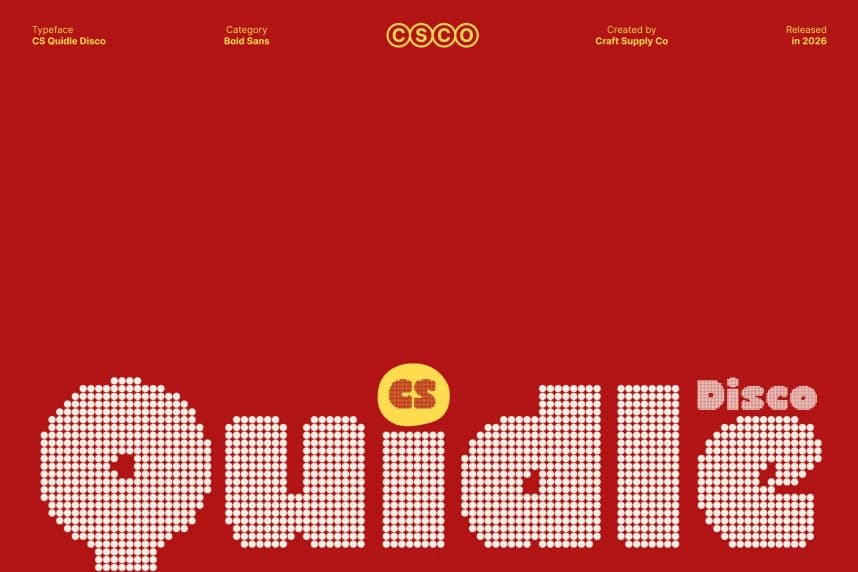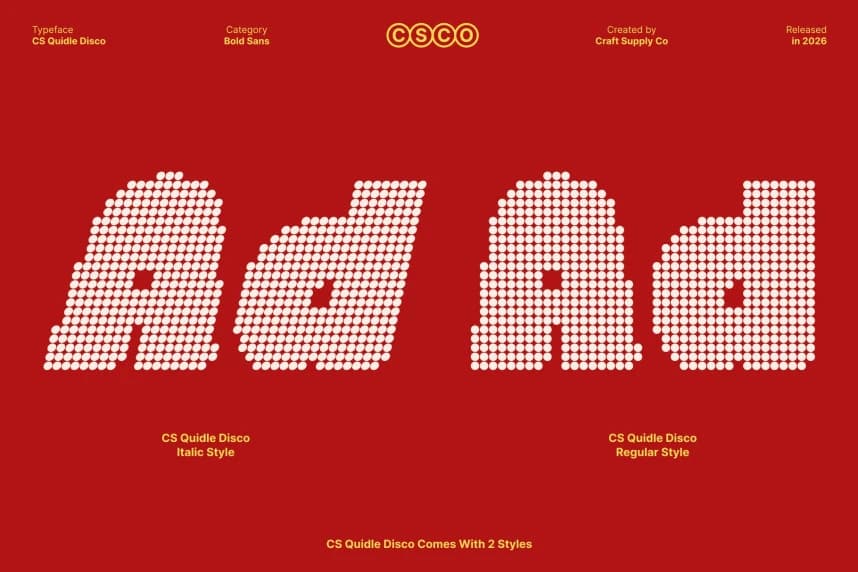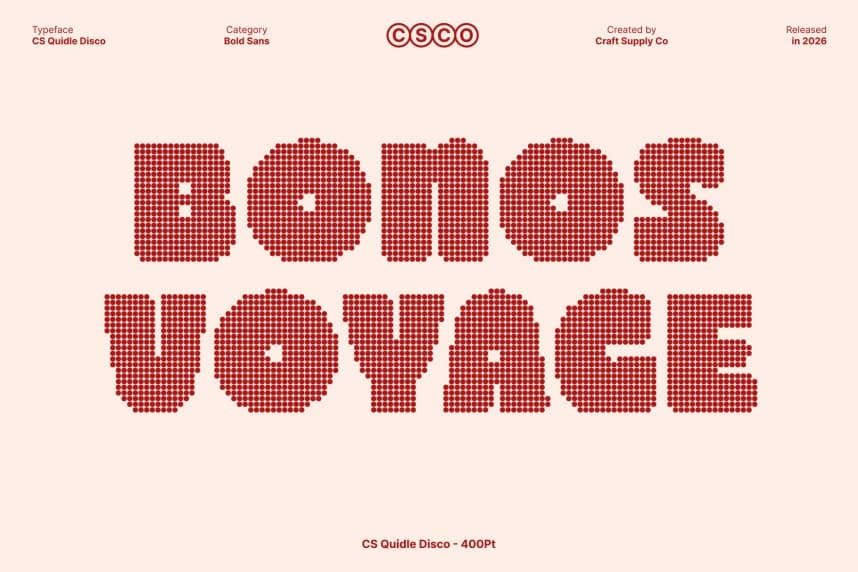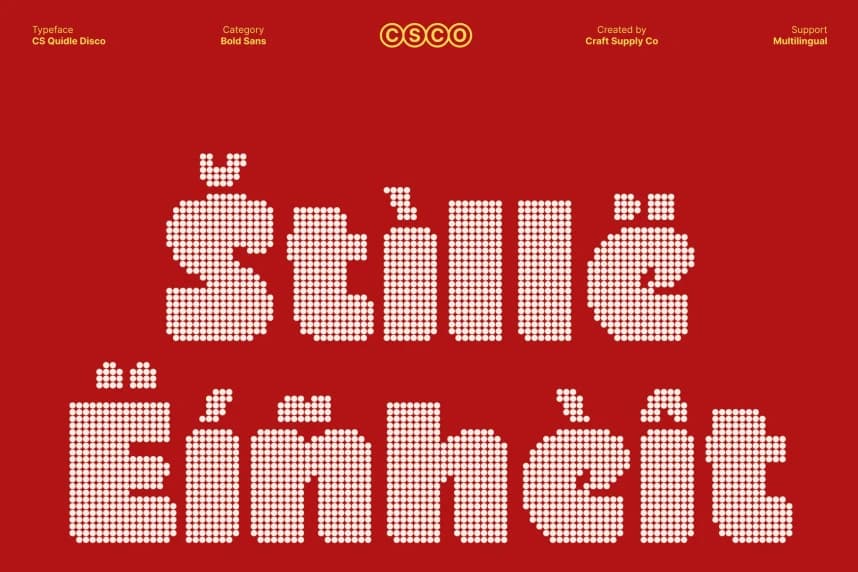
CS Quidle Disco Font
CS Quidle Disco Font – Chunky Boldness with Sparkling Playful Charm Chunky Display Style with Disco Energy. This is a bold, chunky display font designed to make a powerful visual statement